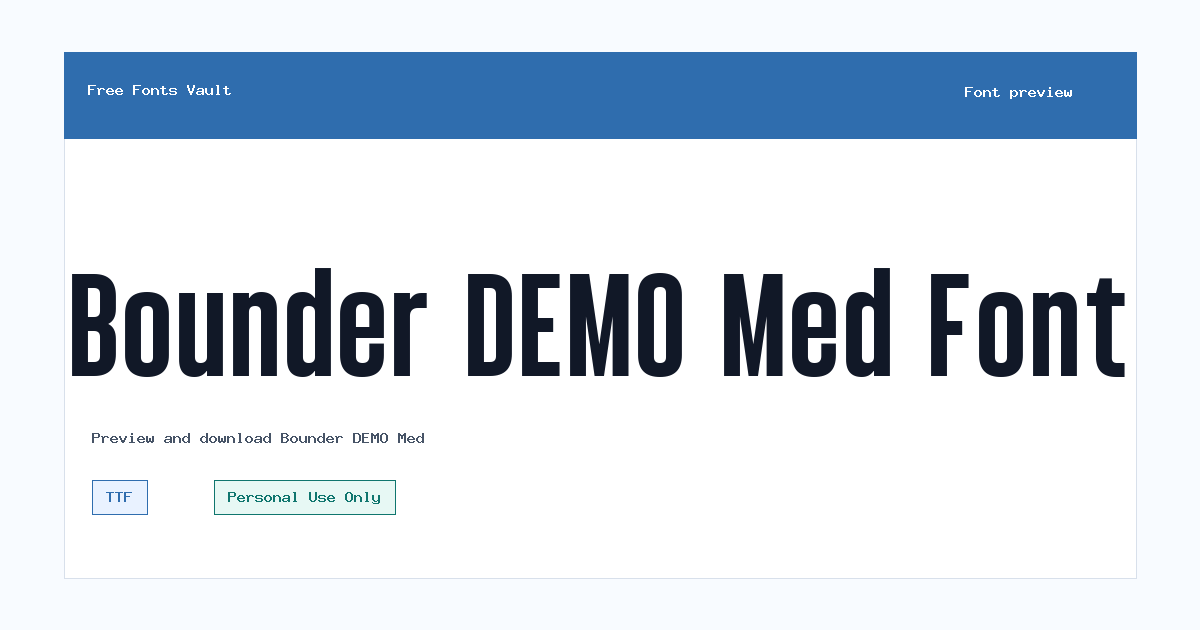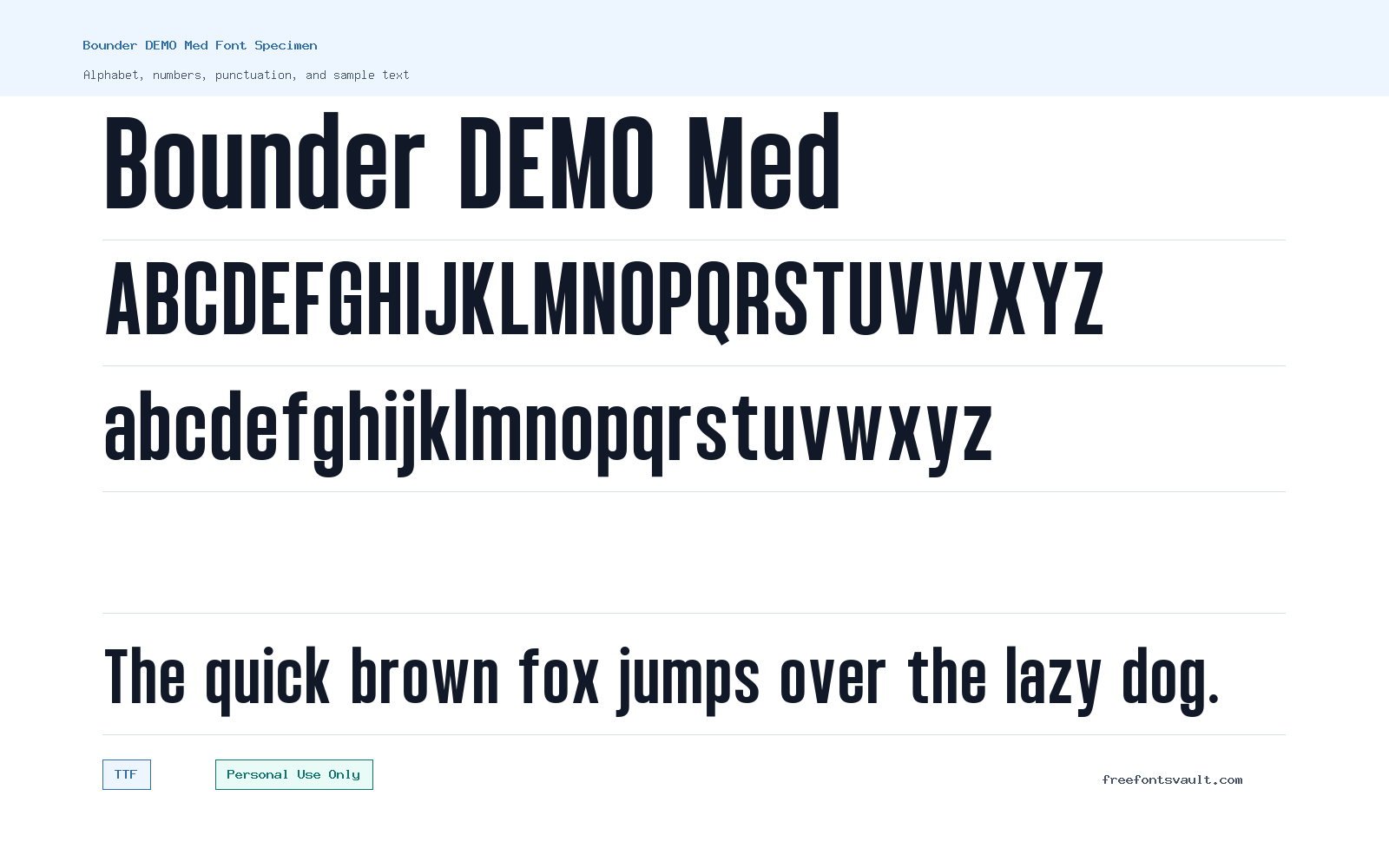
Bounder DEMO Med
Bounder DEMO Med is a medium-weight sans serif demo font from Say Studio. It is a practical choice when you want to test a clean display style in personal projects, visual drafts, poster layouts, logo concepts, or web mockups before deciding whether it fits a larger design system.
Bounder DEMO Med sits in a useful middle range: heavier than a light text face, but not as forceful as a bold display font. The font file is a TTF, with a normal style and a 500 weight, so it should feel steady in headings, short labels, buttons, and preview layouts. Because the available style is the medium weight, it is best treated as a focused design option rather than a full family with many weights. Use it where one clear voice is enough, especially in short pieces of text where the shape and spacing can stand out.
- Medium-weight sans serif style suitable for headings, labels, and short display text.
- Normal style with a 500 font weight for a balanced, mid-weight appearance.
Use Bounder DEMO Med with short, clear text first. It should be easiest to judge in headlines, logo drafts, poster titles, and web mockup headings. For body copy, test paragraph readability carefully, because a single medium demo style may not give enough flexibility for long reading. Pair it with a quiet serif or a neutral sans serif for supporting text, and keep the companion font simple so the main title does not compete with too many strong shapes. For logo work, check kerning by hand, test the mark in black and white, and preview it at small sizes before exporting final artwork.
What kind of font is Bounder DEMO Med?
It is a medium-weight sans serif demo font. The available style is normal, with a 500 font weight.
Is Bounder DEMO Med good for posters?
It can work well for poster titles and short display text, especially when you want a medium-weight sans serif look. Test your exact title, spacing, and size before finalizing the design.
Should I use this font for long paragraphs?
Use caution with long text. Since the available font is a single medium demo style, it is better suited to headings, labels, and short display copy than extended reading.
What fonts pair well with Bounder DEMO Med?
Pair it with a simple text font that does not fight for attention. A neutral sans serif can keep a modern layout clean, while a restrained serif can add contrast in editorial-style designs.